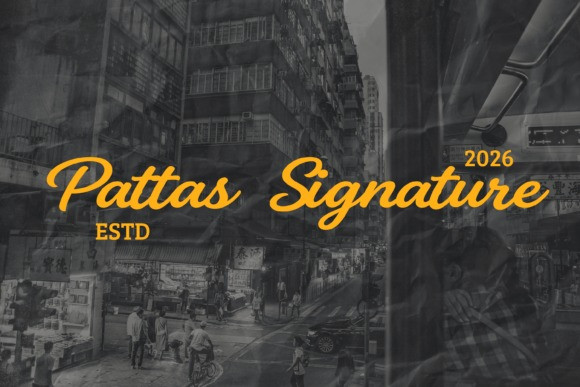
Pattas Signature Font
Pattas Signature Font a retro script typeface that channels the authentic soul of classic hand-lettered signage. Striking an exceptional balance between casual marker scripts and fluid monoline strokes, this font features a relaxed, rhythmic baseline bounce and a confident forward-slanted posture. Its thick, uniform weights and looping uppercase initials mimic the continuous, organic movement of a seasoned brush artist’s stroke.
Boasting an optimized, clean perimeter line, Pattas Signature cuts through complex, monochromatic urban background photography with vibrant clarity. It acts as an instant shortcut to retro-cool streetwear branding, serving as an extraordinary design choice for alternative clothing label tags, vintage café logos, lifestyle blog headers, automotive custom shop decals, indie music festival posters, and high-impact social media quote graphics.